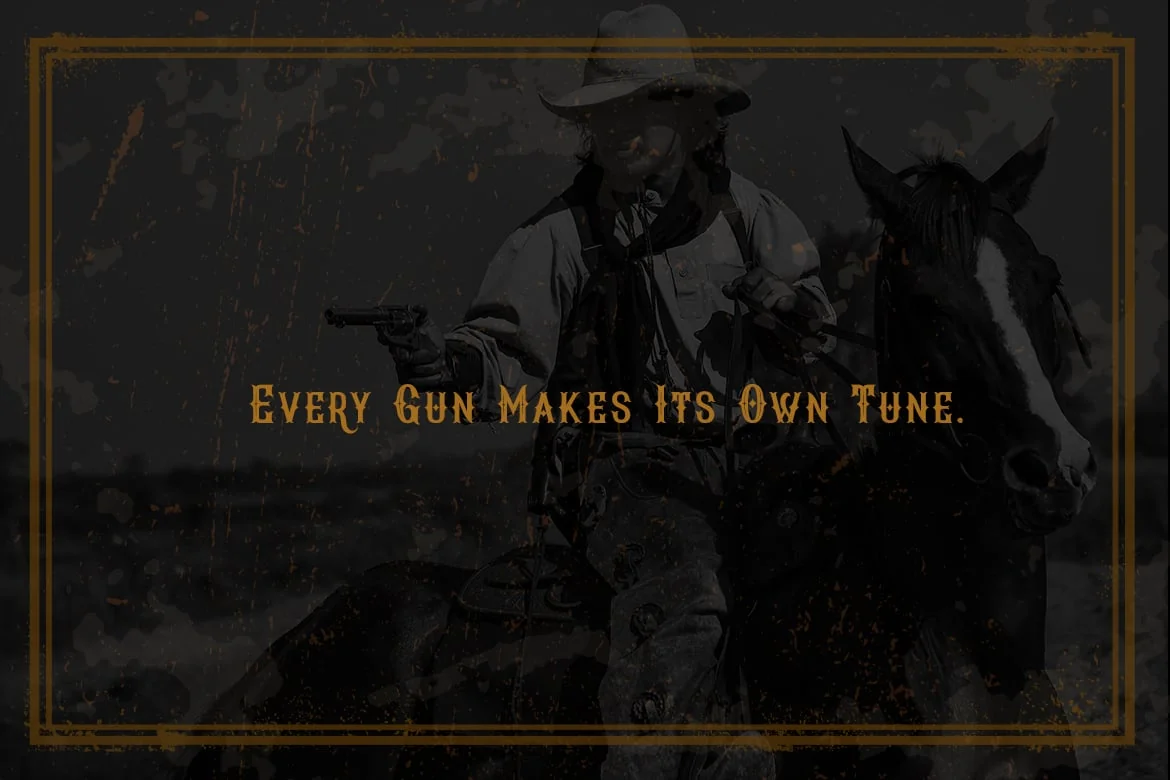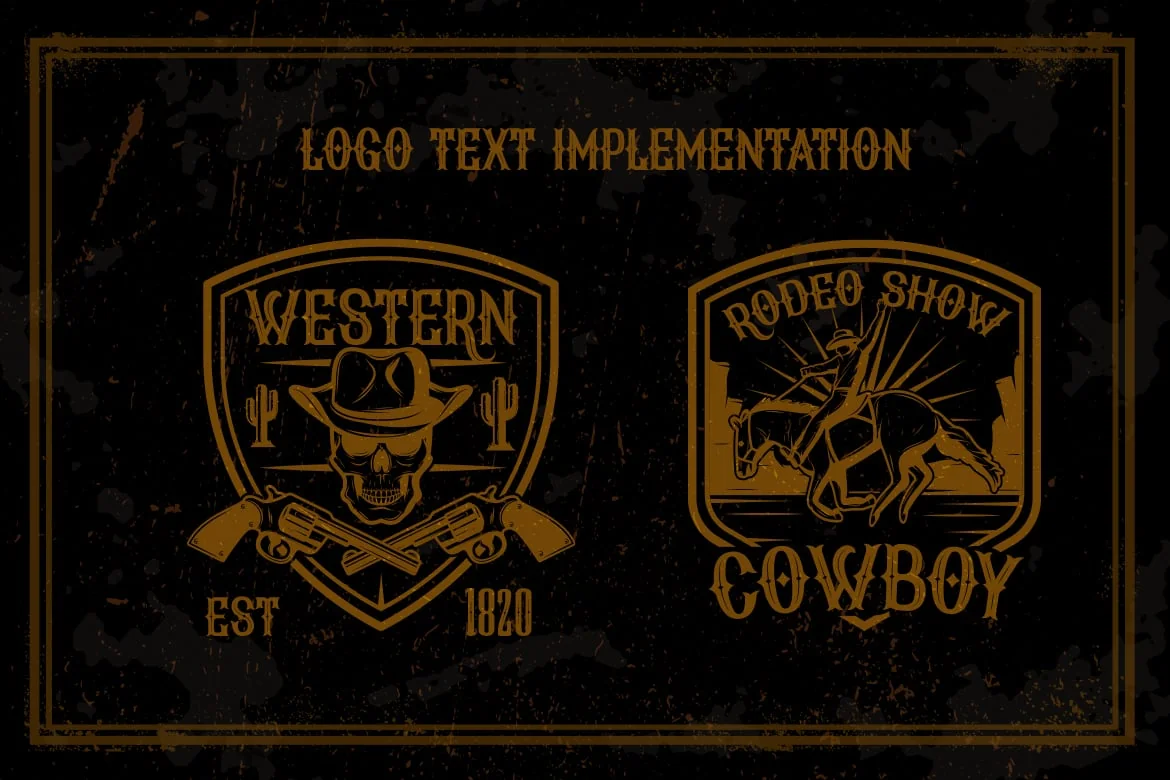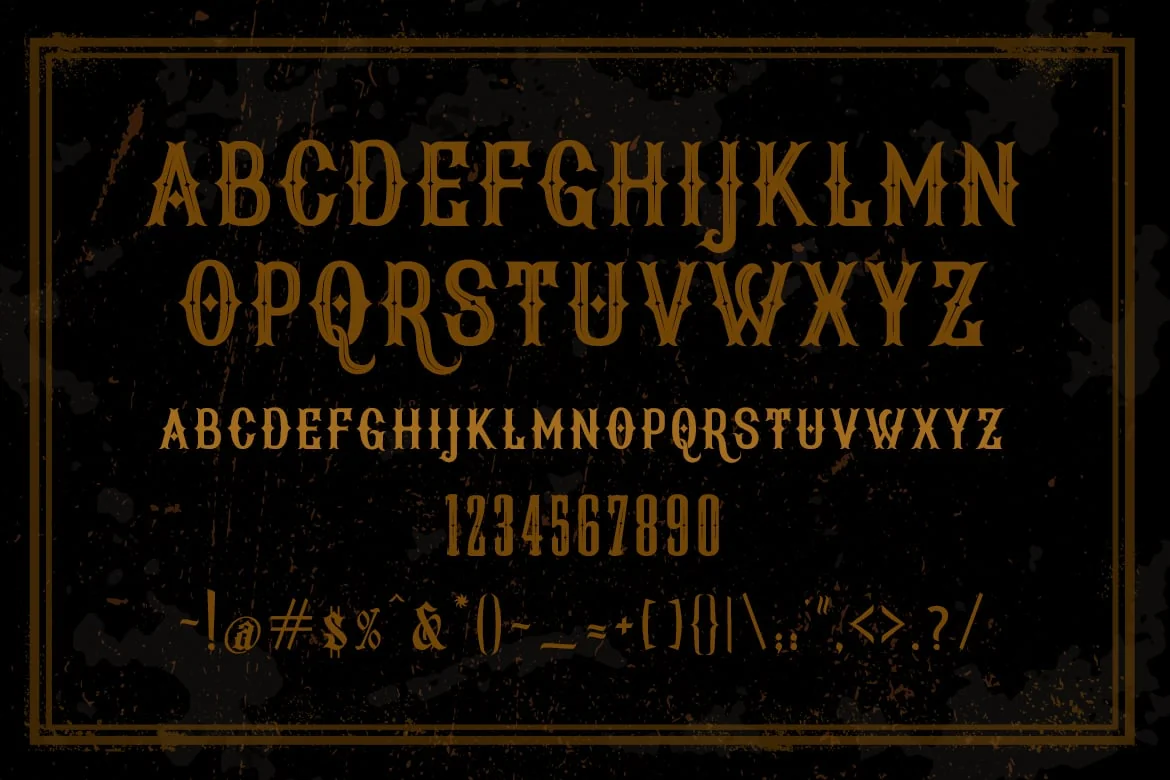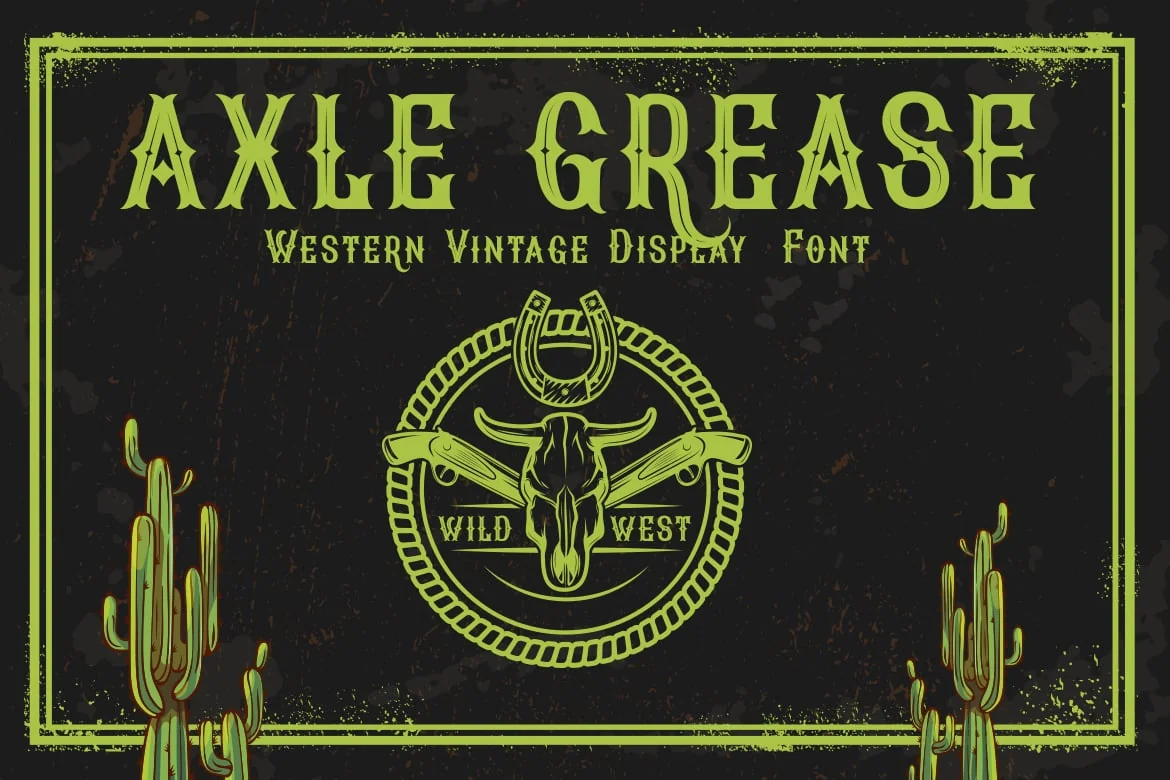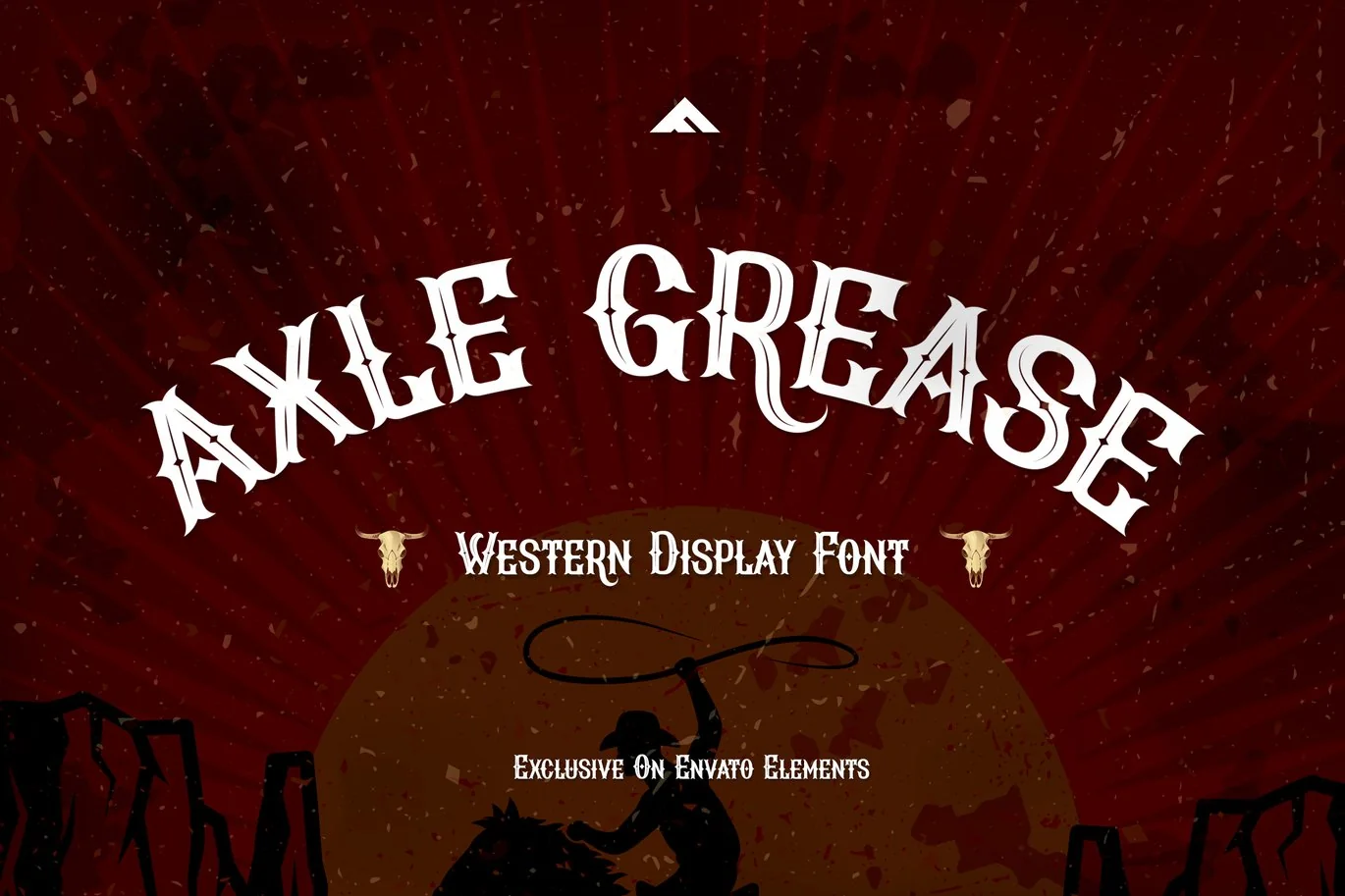
Axle Grease – Western Display Font
Axle Grease – Display Font is a western vintage display font. The unique feature is the decoration of the letter, the Axle Grease font gives your designs an authentic and classic feel. You can use this font as logo text in any branding project, typography design, letter for a header in magazine or book cover, It can be used as a website text header, for product packaging name, t-shirt lettering design, etc.
- Caps and Lower Caps Alphabet
- Numerals & Punctuations
- Multilingual Language